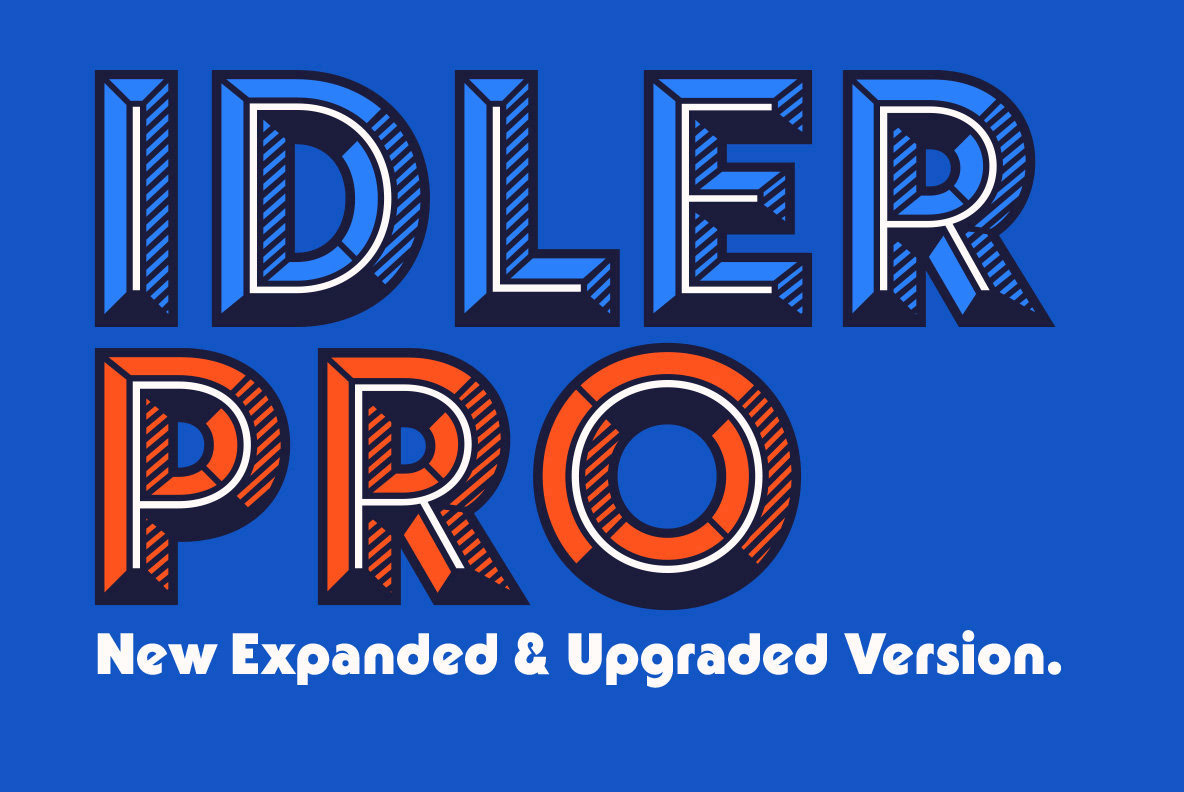
Idler Pro Font
Idler Pro Font is perfect for contemporary branding projects, modern magazine layouts, sophisticated editorial design, creative agency logos, lifestyle brand communications, premium packaging solutions, stylish web typography, and artistic advertising campaigns. This refined typeface works beautifully in both digital applications and print media where creative sophistication and professional elegance are central design considerations.
What makes Idler Pro Font so exciting is its masterful combination of relaxed elegance and professional refinement that creates a uniquely approachable yet sophisticated typographic voice. The font features carefully balanced letterforms with subtle character variations, organic curves, and thoughtful spacing that convey both creativity and reliability. Its distinctive personality and contemporary aesthetic make it ideal for brands seeking to communicate creative excellence, professional quality, and innovative thinking while maintaining accessibility and excellent readability across diverse applications.
The Idler Pro Font family includes comprehensive weight variations from light to bold, along with matching italic styles and stylistic alternates. Each style maintains the typeface's refined character while offering extensive language support, professional numerals, contemporary punctuation marks, and special characters designed to enhance creative communications and international brand applications.
This remarkable typeface represents the perfect fusion of artistic sensibility and professional functionality for modern creative industries. Whether you're developing design studio identities, creating editorial publications, or designing lifestyle brand campaigns, Idler Pro Font Free Download delivers the creative sophistication and versatility needed to distinguish your work in competitive markets. The font's contemporary appeal makes it particularly effective for creative agencies, lifestyle brands, publishing companies, and organizations celebrating innovation and artistic excellence.
The meticulously crafted letterforms and optimized performance in Idler Pro Font ensure exceptional visual quality while maintaining clear communication across all platforms and applications. Its balanced presence makes it ideal for both headline applications and extended reading, making it a valuable tool for designers creating cohesive brand experiences that resonate with audiences seeking creativity, quality, and contemporary sophistication.